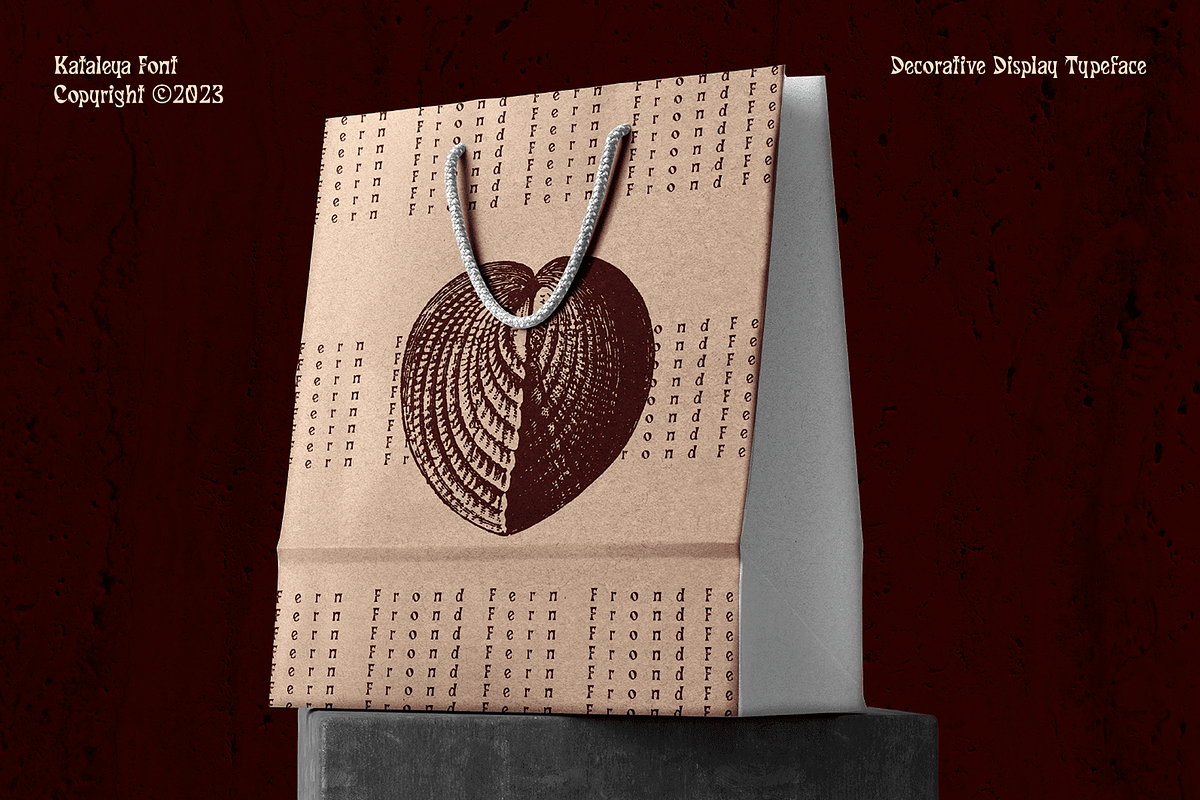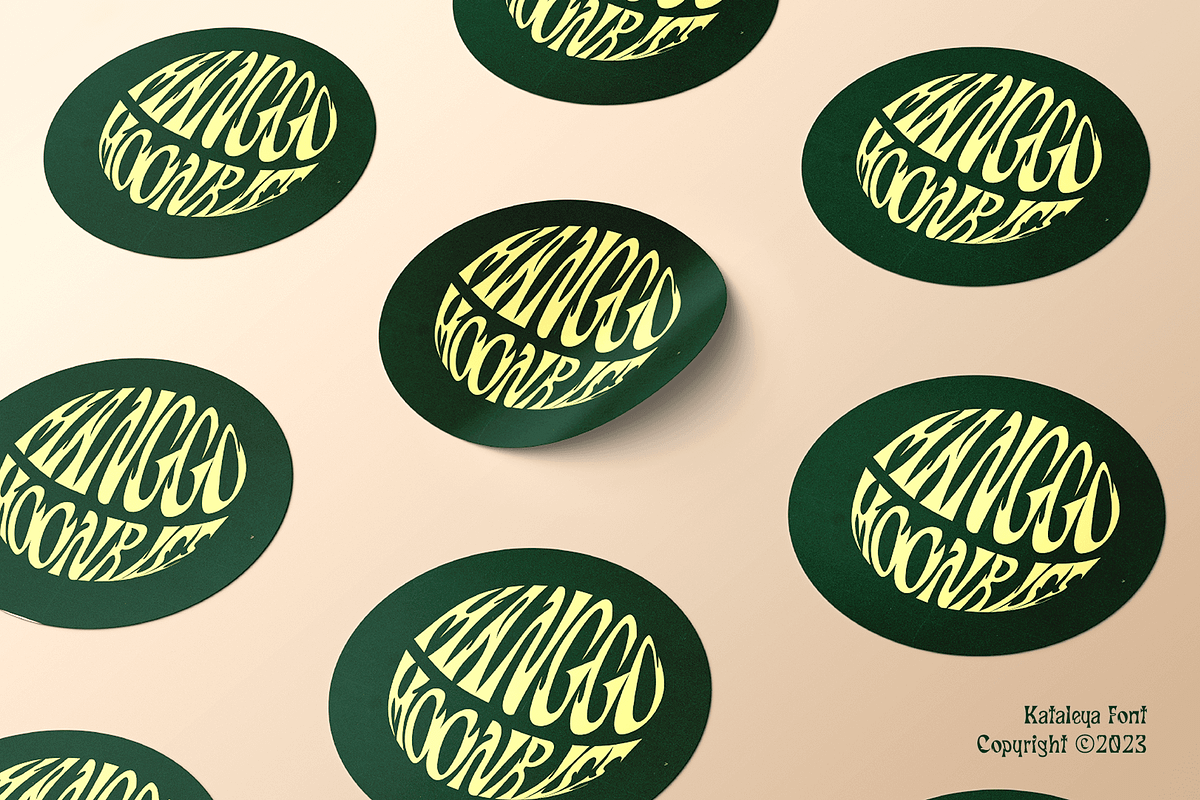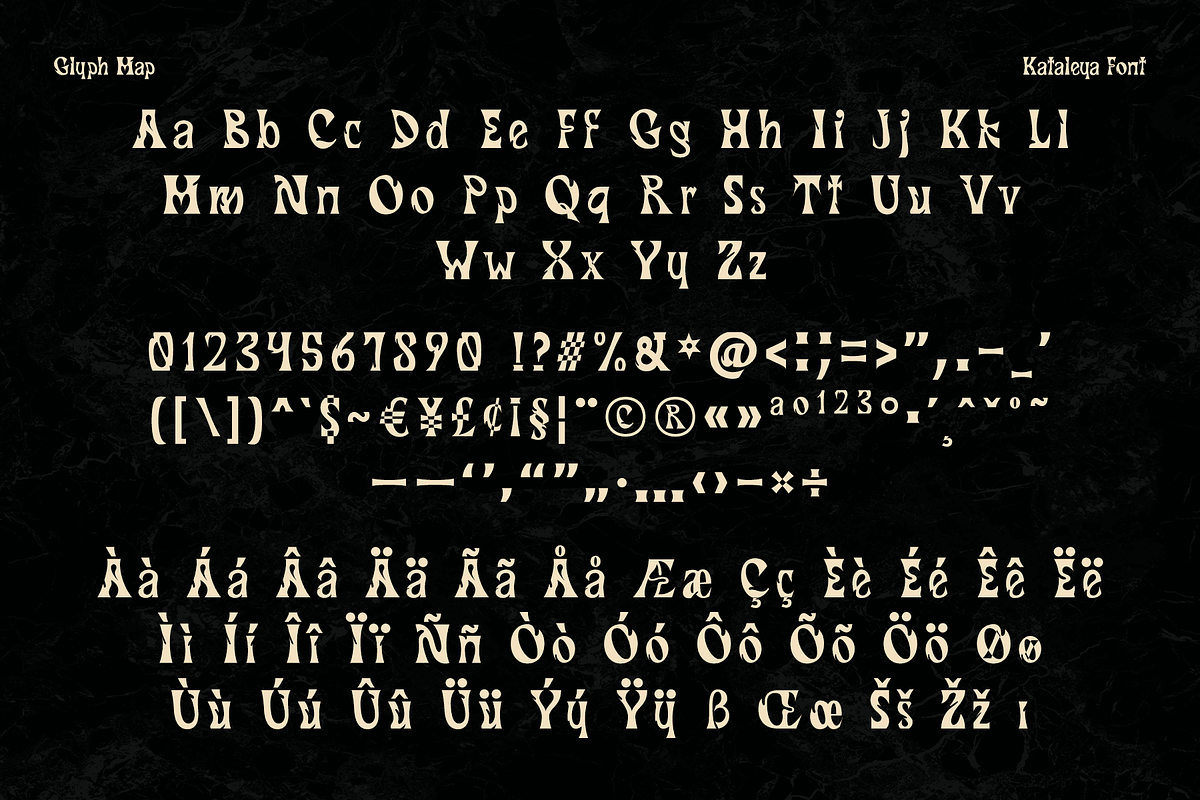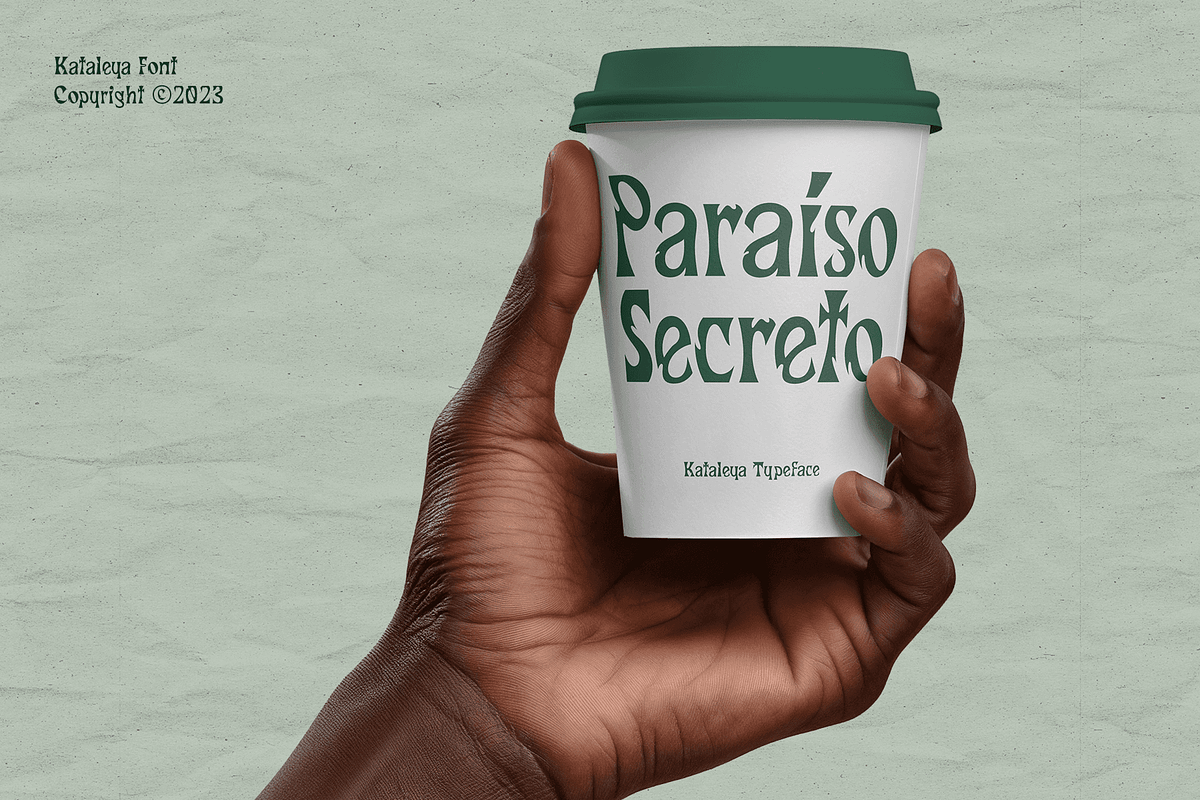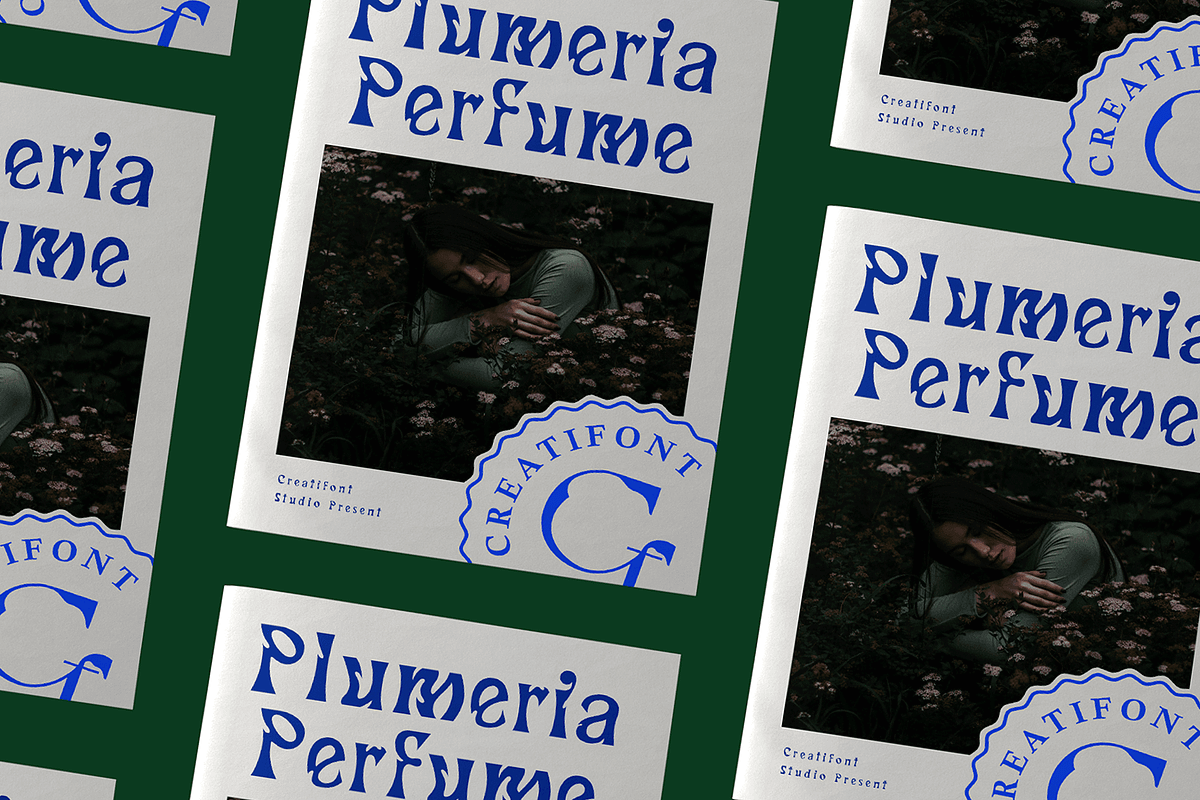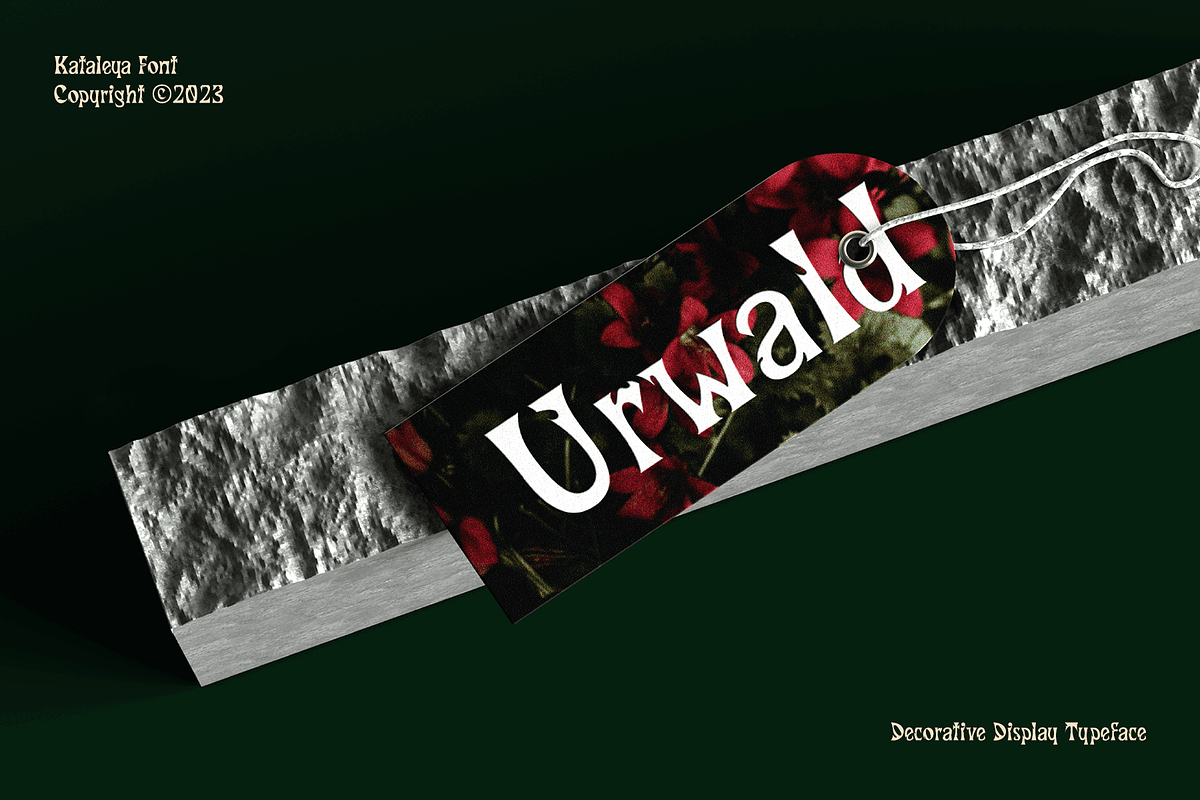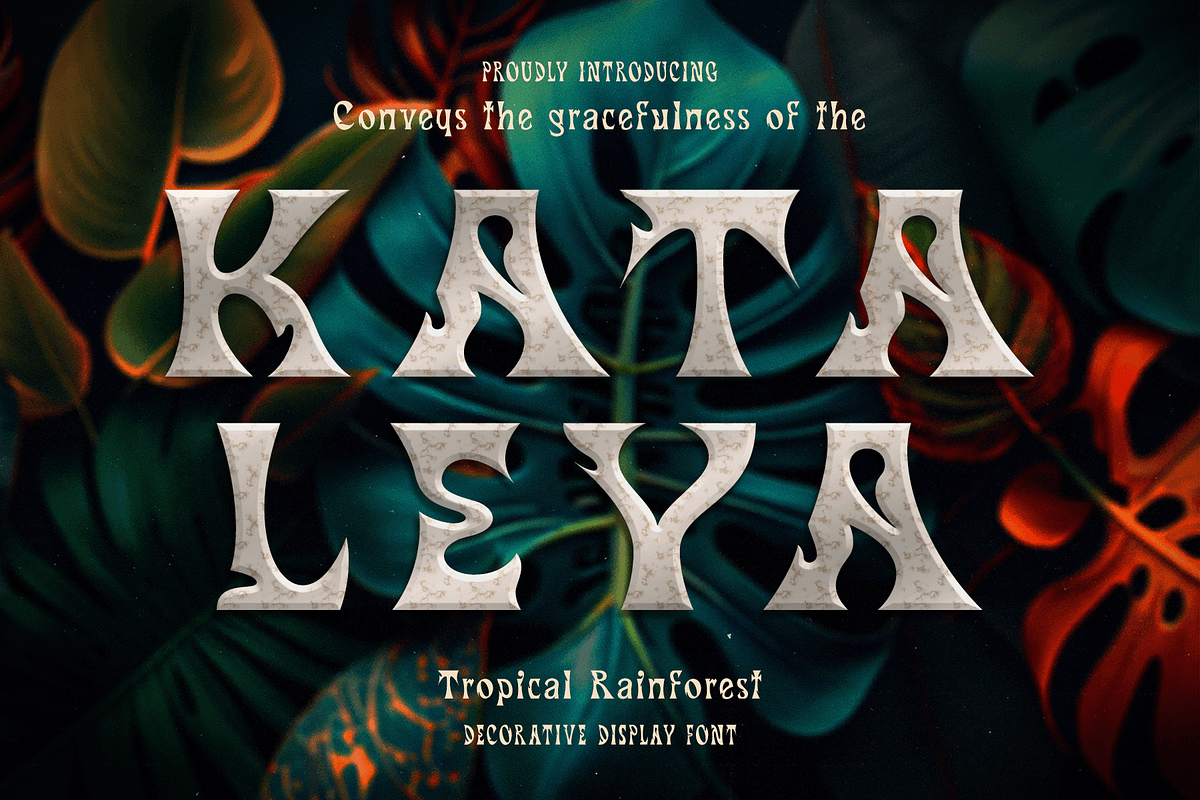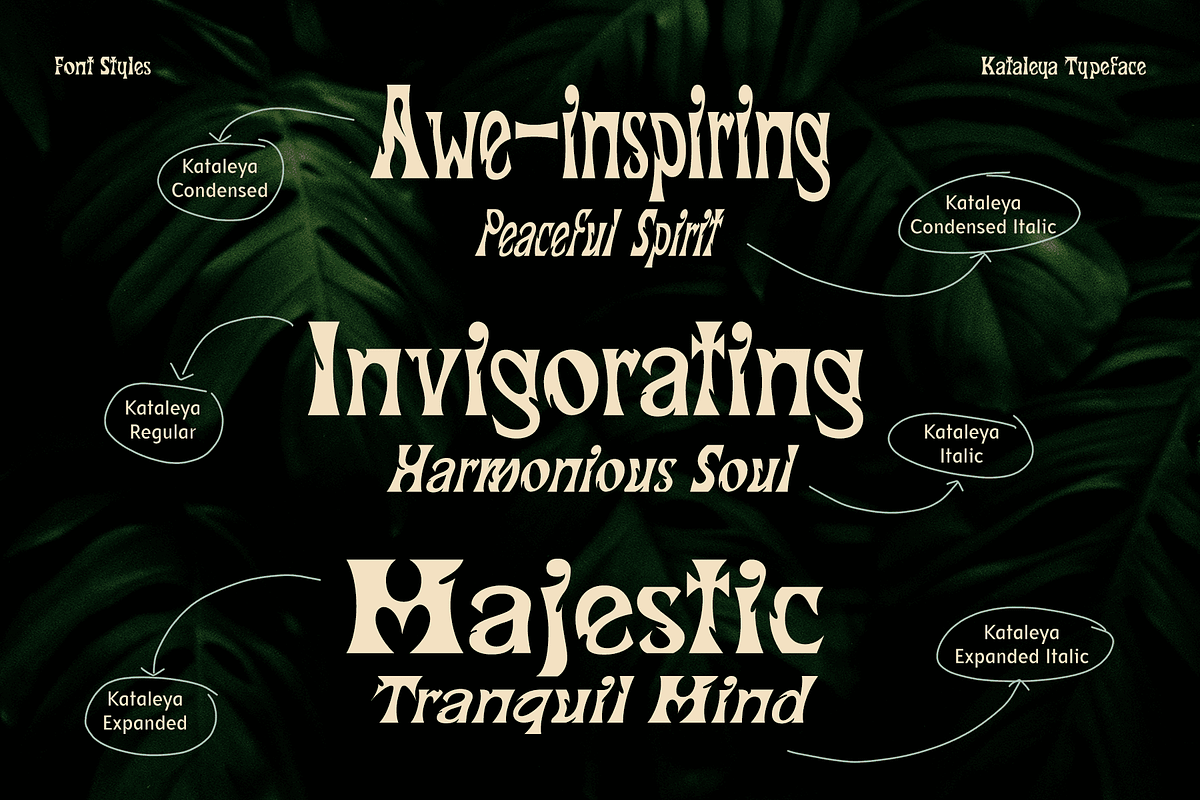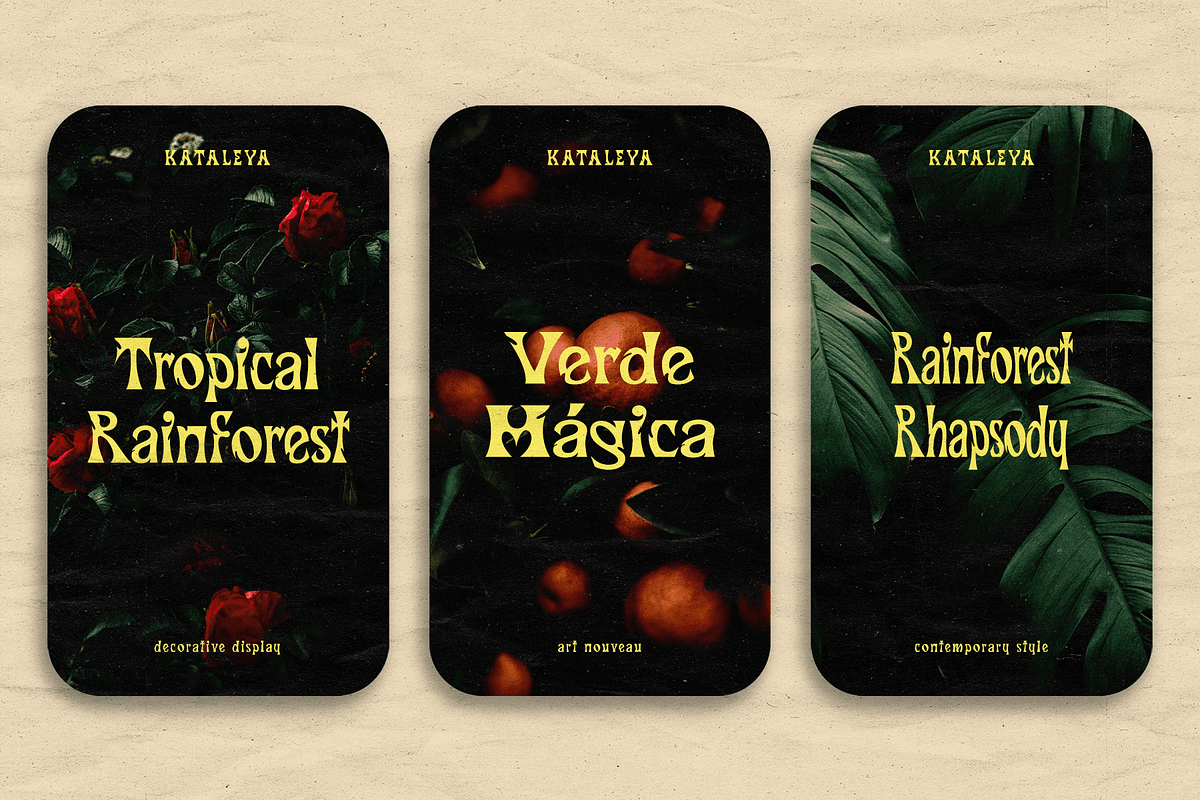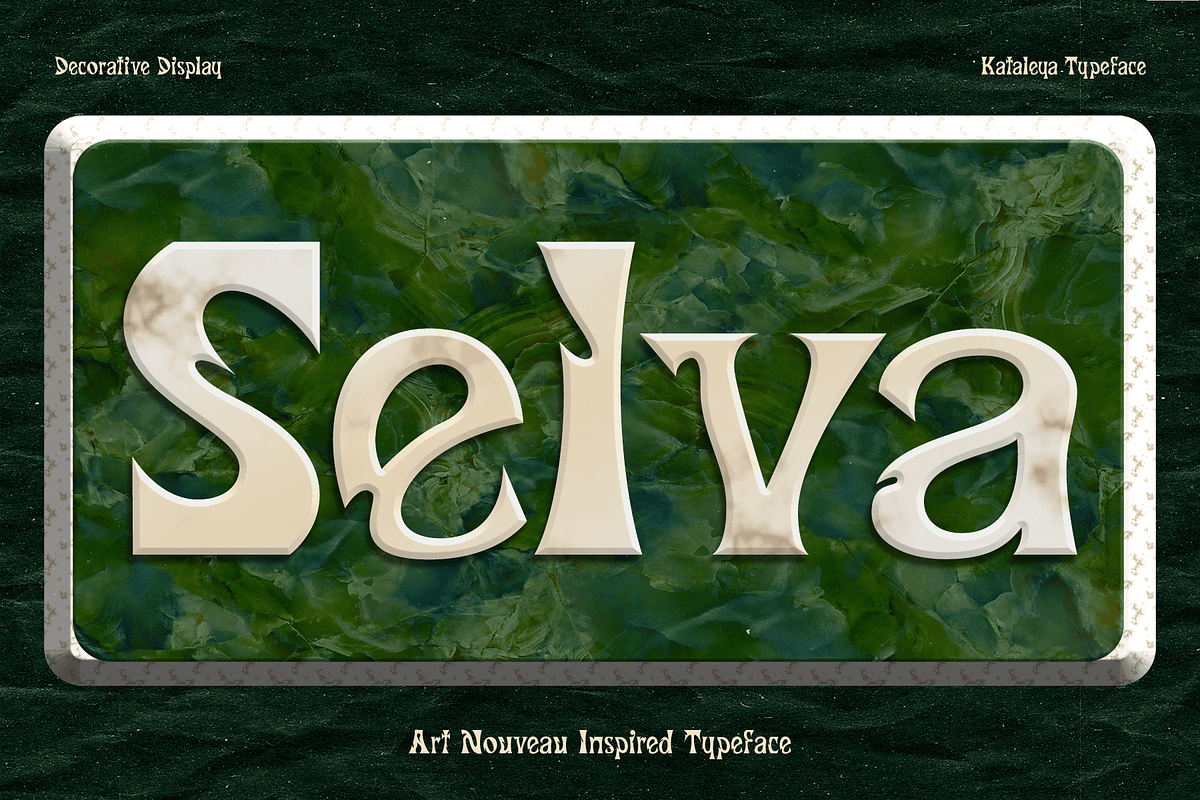
CF Kataleya - Art Nouveau Display
Kataleya - a font that beautifully captures the essence of Art Nouveau with a contemporary twist, seamlessly blending the elegance and organic intricacies of this iconic artistic movement with the simplicity of grotesque design making it a perfect choice for projects that require a balance of classic and contemporary aesthetics. It is suitable for creating designs such as packaging, logos, or titles.
- Standard Character A-Z, a-z, 0-9, Punctuation & symbols
- Condensed, Regular, Expanded Style
- Italic Styles